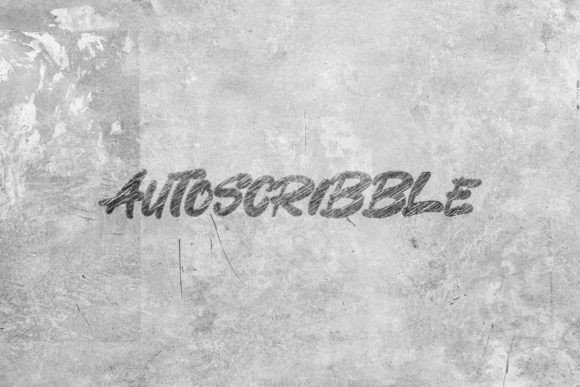
The Autoscribble Font: A Bold Display Font to Elevate Your Designs
I’ll never forget the time I was working on a project for a client who needed a bold, eye-catching font to make their brand stand out. I had spent hours scouring the internet for the perfect font, but nothing seemed quite right. That was until I stumbled upon the Autoscribble font. With its unique blend of style and versatility, it’s been a game-changer for my design work ever since.
A Personal Review of Autoscribble
So, what do I love about Autoscribble? Here are a few things that make it a standout font:
• ✨ Bold and eye-catching: Autoscribble is a bold display font that’s perfect for making a statement.
• ✅ Highly versatile: It can be used in a variety of design projects, from logos and branding to posters and social media graphics.
• 💡 Easy to read: Despite its boldness, Autoscribble is surprisingly easy to read, even at smaller sizes.
Of course, no font is perfect, and Autoscribble does have a few small quirks:
• 🤔 Limited use in body text: While Autoscribble is great for headlines and titles, it’s not the best choice for body text due to its boldness.
3. Take advantage of OpenType features, such as glyphs and stylistic alternates, to add more variety to your design.
One of the best things about Autoscribble is its support for OpenType features and glyphs. These features allow you to add more variety and creativity to your designs. Here are a few examples:
• Stylistic alternates: Autoscribble includes several stylistic alternates that allow you to change the look of your text. For example, you can use a more condensed version of the font for headings or a more extended version for body text.
• Glyphs: Autoscribble includes a range of glyphs that you can use to add more interest to your text. For example, you can use glyphs to create custom bullet points or to add decorative elements to your design.
The Story Behind Autoscribble
Autoscribble was designed by a team of typographers who wanted to create a bold, eye-catching font that would stand out in any design. The font was inspired by a range of different sources, including graffiti and street art. The result is a font that’s both modern and edgy, with a unique personality that’s sure to make your designs stand out.
Font Name Autoscribble Font
Author Nickhard
What is Autoscribble? Autoscribble is a bold display font designed for use in a variety of design projects.
Is Autoscribble easy to read? Yes, Autoscribble is surprisingly easy to read, even at smaller sizes.
Can I use Autoscribble for body text? While Autoscribble is great for headlines and titles, it’s not the best choice for body text due to its boldness.